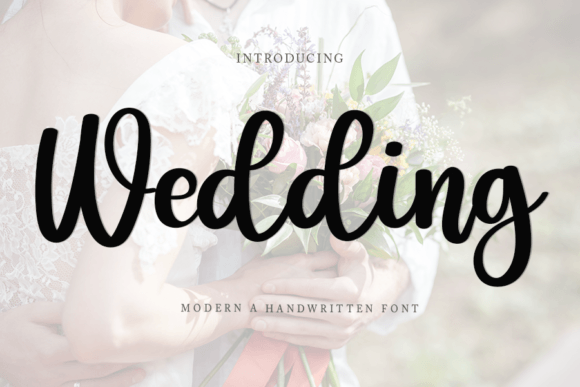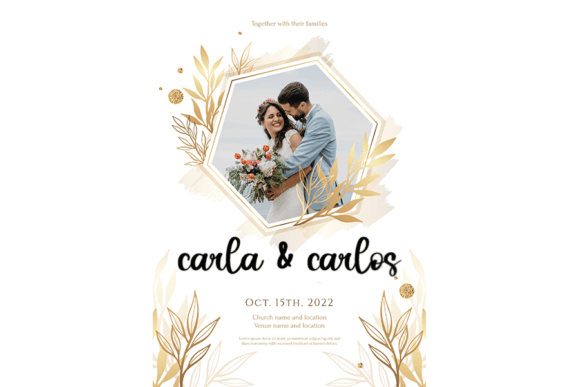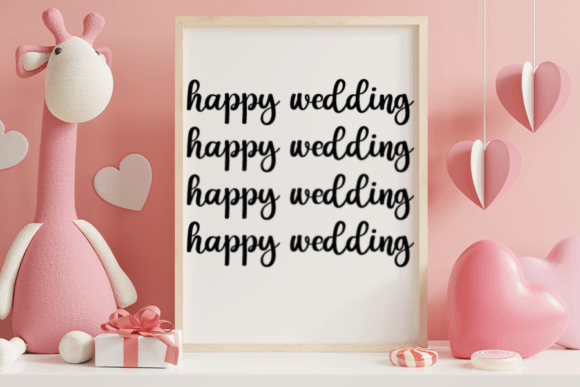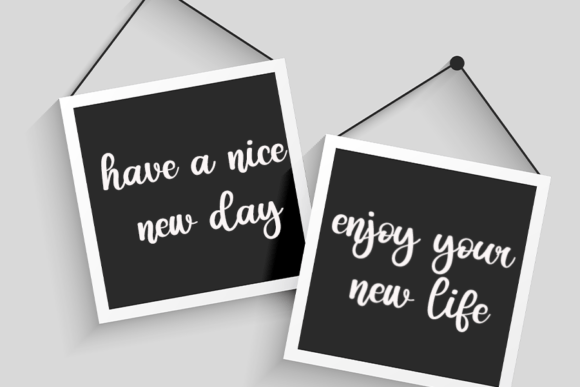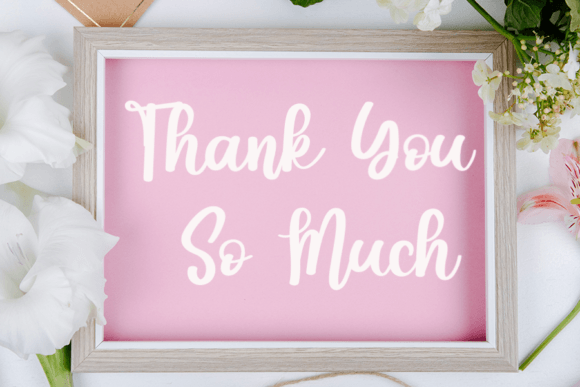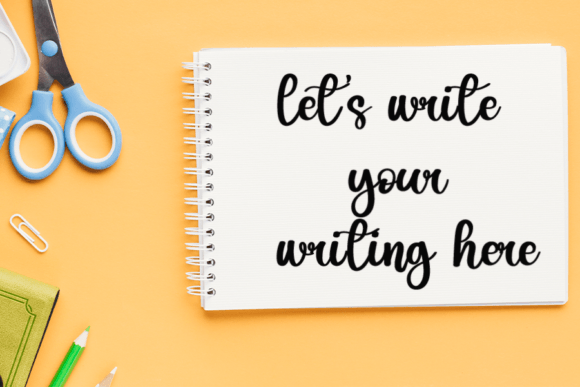
Wedding Font
Add Elegance to Every Detail with Wedding Font
Wedding Font is a beautiful handwritten typeface that combines simplicity and charm. Designed with elegance in mind, this font is ideal for creatives who want to add a sophisticated, yet playful, touch to their designs. Its soft curves and quirky strokes create a balance that feels both natural and graceful, making it a standout choice for wedding themes and beyond.
Perfect for Invitations and Branding
Whether you’re crafting a wedding invitation or designing branding materials, Wedding Font offers the flexibility and style your project deserves. You can use it for:
• Elegant wedding invitations and RSVP cards
• Event signage and place cards
• Stylish logos and brand identities
• Fashion labels and stationery
• Instagram posts and marketing graphics
Thanks to its timeless appeal, it blends seamlessly with both minimalist and ornate styles.
Easy to Read and Stylish
Despite its handcrafted look, Wedding Font remains very easy to read. The clean letterforms and thoughtful spacing make it an excellent choice for both print and digital designs. You’ll love how it enhances your text without overpowering the overall aesthetic.
Use It Across All Your Projects
A Handwritten Feel with Professional Results
Wedding Font has been created with attention to detail to give you the best of both worlds: the softness of a personal touch and the clarity of a professional font. It’s casual enough for creative projects yet refined enough for formal applications.